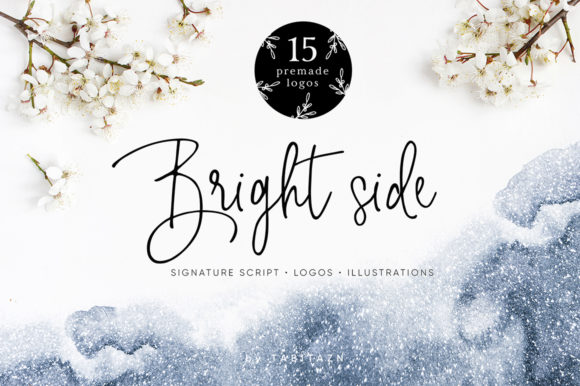
Feast your eyes on Bright Side Font, the mesmerizing script font that exudes elegance and sophistication. Step into a world of visual delight as you explore the endless possibilities of this captivating font, meticulously crafted by Tabita's Shop, a haven of creativity and design excellence.
With its graceful monoline strokes, Bright Side Font dances across your screen like a symphony of ink, adding a touch of artistry to every letter and word. Whether you're a seasoned designer or just starting your creative journey, this font is your ticket to crafting designs that resonate with beauty and charm.
From heartfelt greeting cards to stunning invitations, the Bright Side Font breathes life into your words, transforming them into visual masterpieces. Its versatility knows no bounds, effortlessly elevating logos, blogs, and social media posts, leaving an unforgettable impression on your audience.
Unleash your imagination and let Bright Side Font guide you through a realm of visual storytelling. Its inherent elegance adds a touch of refinement to any project, capturing attention and captivating hearts.
But Bright Side Font is more than just a font; it's a gateway to a world of creative expression. Included in this remarkable package are 36 exquisite floral and feminine doodles, delicate brushstrokes that dance alongside your text, adding a touch of whimsy and charm.
Combine these graphic elements with your words, and watch as endless possibilities unfold before your eyes. The variations and combinations are limitless, allowing you to create designs that are uniquely yours, reflecting your personal style and vision.
For those seeking a quick start, the Bright Side Font collection includes 15 pre-made logo templates, meticulously designed to showcase the font's versatility and elegance. These templates are fully editable, inviting you to customize them to your liking, making them the perfect foundation for your creative endeavors.